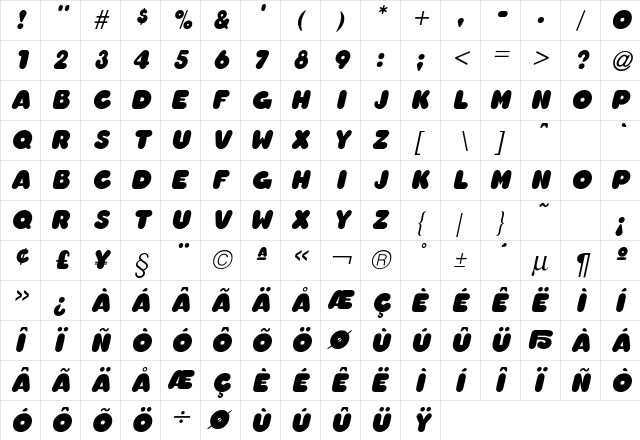
Design Context for OledaSCapsSSK Typeface
OledaSCapsSSK is a composed and adaptable typeface that performs quietly and consistently across a wide range of design contexts. Its italic angle brings a sense of urgency and motion to the letterforms. The heavy weight commands attention and anchors typographic hierarchies.
Pro Tip: Try OledaSCapsSSK for annotation and caption copy alongside an upright companion — the contrast in angle creates a dynamic but ordered typographic system.